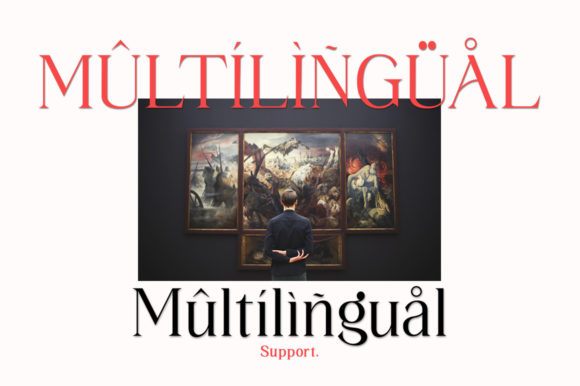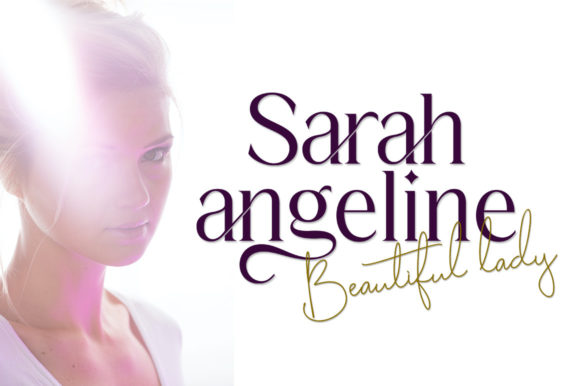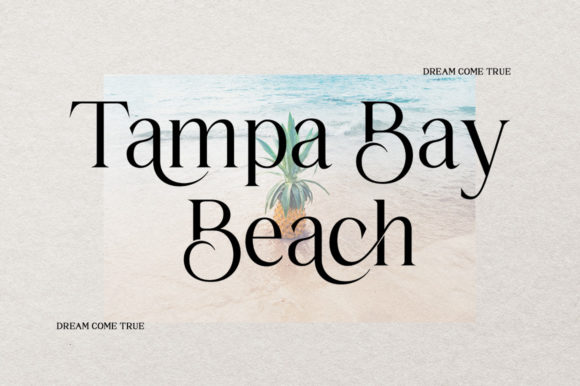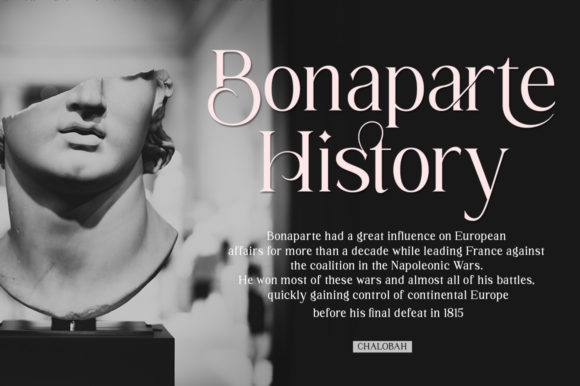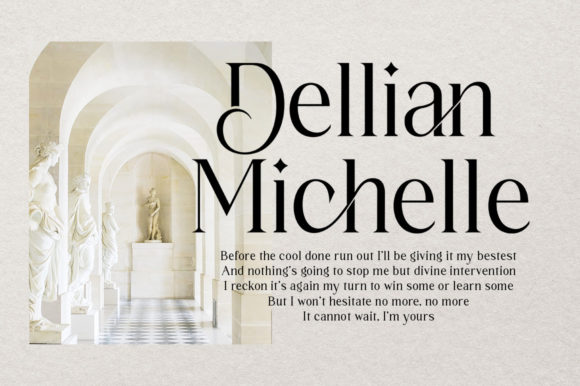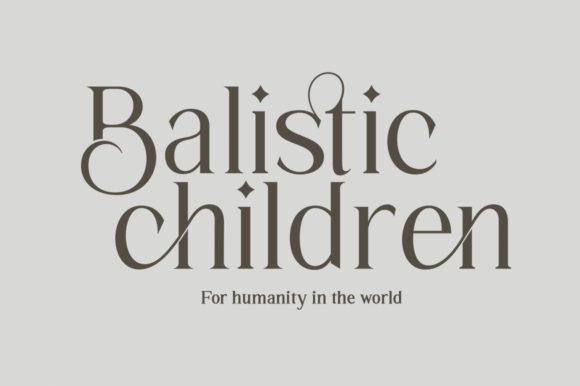
Introducing Chalobah Font: Elevate Your Designs with Elegance and Versatility
In the world of typography, a font can make or break a design. For designers and crafters, finding the perfect typeface that combines aesthetic appeal with versatility is a constant quest. This is where Chalobah Font comes into play, offering a unique blend of serif elegance, simplicity, and clean visual sophistication. In this article, we’ll dive deep into the features and benefits of Chalobah Font, exploring how it can elevate your projects to new heights.
Chalobah Font: A Serif Look with a Twist
Chalobah Font boasts a serif look that is both classic and contemporary. Its design is characterized by smooth curves and beautiful ligatures, providing a touch of sophistication to any design. The serif elements add a level of professionalism and elegance, making it an ideal choice for projects where a refined look is desired.
One of the standout features of Chalobah Font is its incredible versatility. It works great in both large and small sizes, making it a flexible choice for a wide range of projects. Whether you’re designing headlines, logos, labels, or need a font for branding, magazines, homeware designs, product packaging, mugs, quotes, posters, or more, Chalobah Font is up to the task.
Expressive and Fun
What sets Chalobah Font apart from more traditional typefaces is its expressiveness and fun factor. The font comes with many alternatives and binders that combine harmoniously, making it more interesting and versatile. This means you can experiment with different styles and combinations to find the perfect look for your project. Whether you’re aiming for something playful and whimsical or elegant and refined, Chalobah Font gives you the tools to achieve your design goals.
PUA Encoded for Ease of Use
Chalobah Font is PUA (Private Use Area) encoded, which is a significant advantage for designers. PUA encoding allows you to access all the glyphs and swashes easily, giving you greater creative freedom and flexibility. This means you can dive into your design work without the hassle of complicated font management, making the creative process smoother and more enjoyable.
Applications of Chalobah Font
The applications of Chalobah Font are vast and varied. Here are some of the key areas where this font shines:
- Headlines and Logos: The elegant serif look and smooth curves make Chalobah Font perfect for headlines and logos that need to make a statement.
- Branding and Magazines: For branding projects and magazine layouts, Chalobah offers a level of sophistication and professionalism.
- Homeware Designs and Product Packaging: The font’s versatility shines in homeware designs and product packaging, where it can add a touch of elegance.
- Mugs and Quotes: For more personal and fun projects like mugs and inspirational quotes, Chalobah’s expressiveness and alternative characters come into play.
- Posters: Whether it’s for an event, a promotion, or an artistic project, Chalobah Font can help create visually appealing posters.
Chalobah Font is a remarkable addition to any designer’s toolkit. Its unique blend of serif elegance, simplicity, and versatility makes it suitable for a wide range of projects. With its smooth curves, beautiful ligatures, and PUA encoding for easy access to glyphs and swashes, Chalobah Font is poised to elevate your designs. Whether you’re a professional designer or a crafter, Chalobah Font offers the perfect combination of aesthetic appeal and functionality to bring your creative visions to life.
In a world where design plays a crucial role in communication and expression, having a font like Chalobah at your disposal can make all the difference. So, why settle for ordinary when you can create something extraordinary with Chalobah Font?